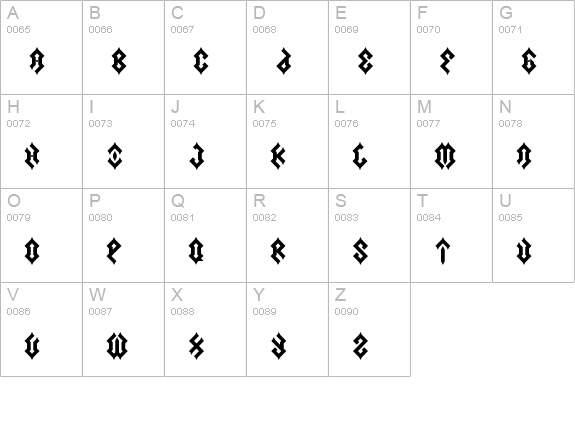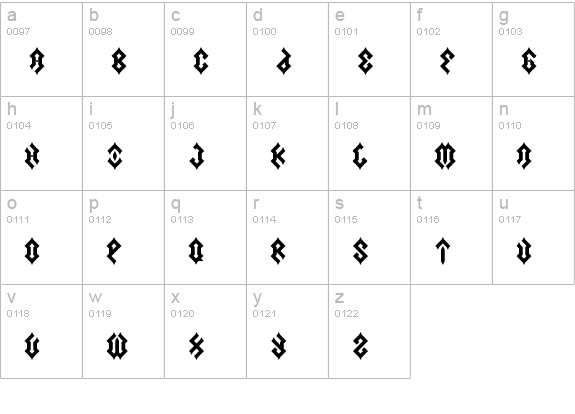
Scars Regular Font Details
Scars Regular is the standard, neutral variant in the Scars typeface family \xE2\x80\x94 well suited to general body text, paragraphs, and standard typographic work.
Scars Regular font is a bold and striking typeface that exudes raw emotion and edgy character. Its jagged edges and rough texture give it a unique and rebellious feel, making it perfect for projects that require a touch of grit and individuality. Whether you're designing posters, album covers, or branding materials, Scars Regular font will make a powerful statement and leave a lasting impression. The best part is that Scars Regular font is available for free download at FontsMarket.com. This means you can easily access this eye-catching font and incorporate it into your designs without any cost. Don't miss out on this opportunity to add a touch of attitude and style to your projects with the captivating Scars Regular font. Download it now and let your creativity shine!